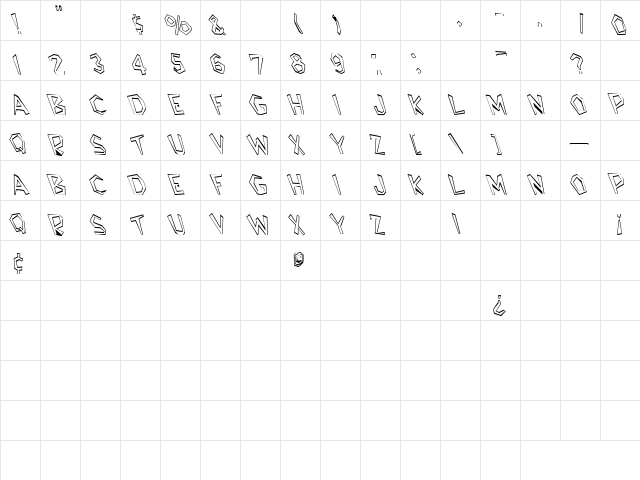
Jelly 1 Regular
Design Context for Jelly 1 Typeface
Jelly 1 is a composed and adaptable typeface that performs quietly and consistently across a wide range of design contexts.